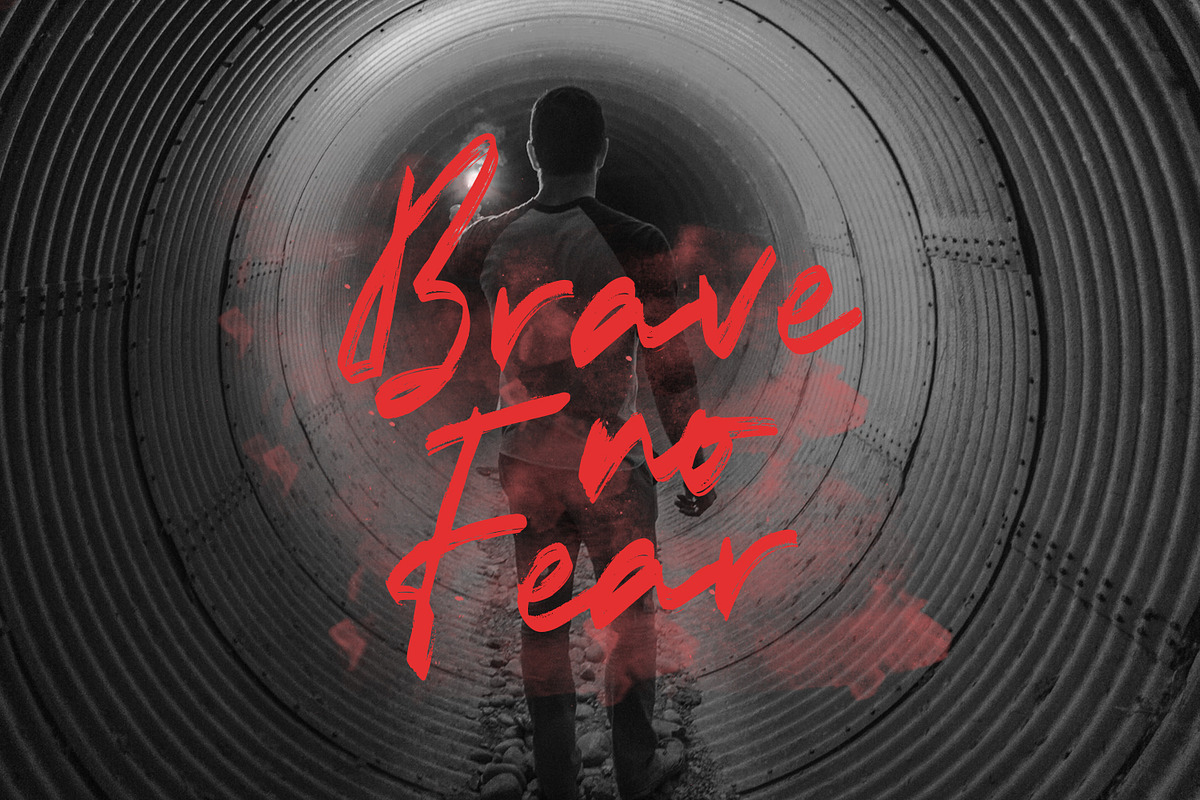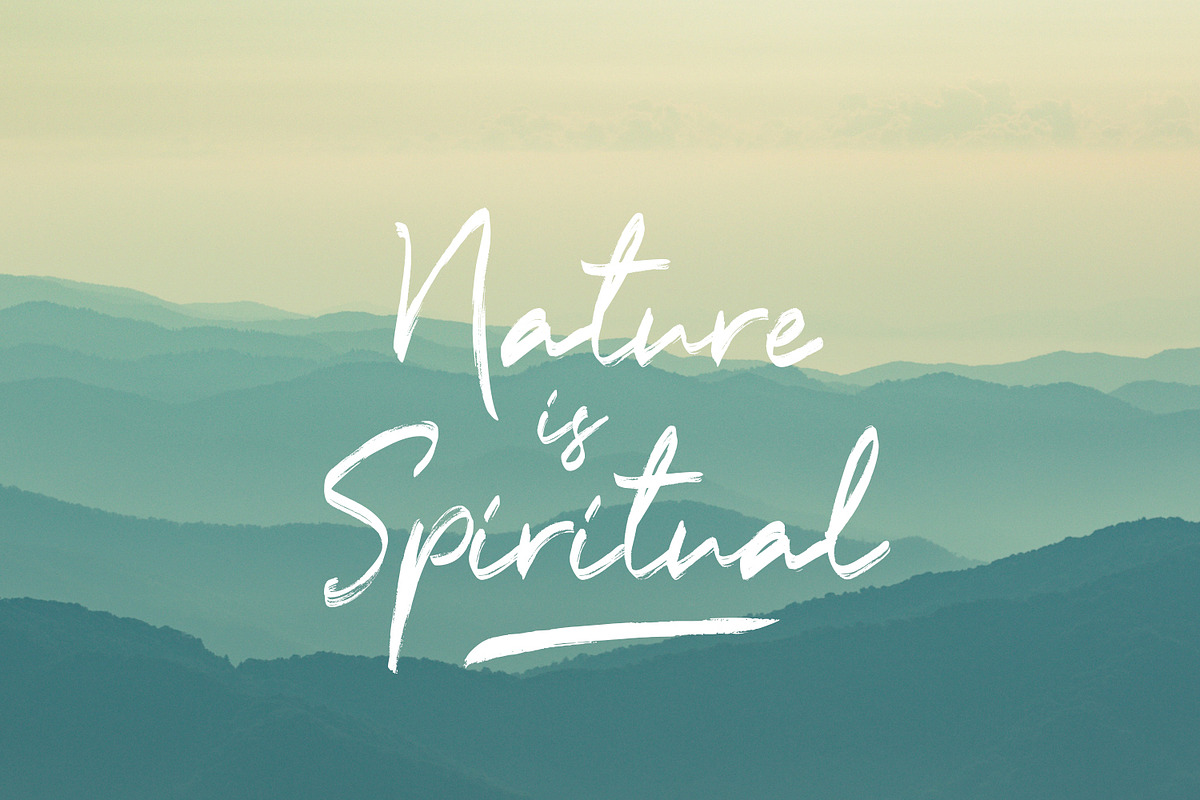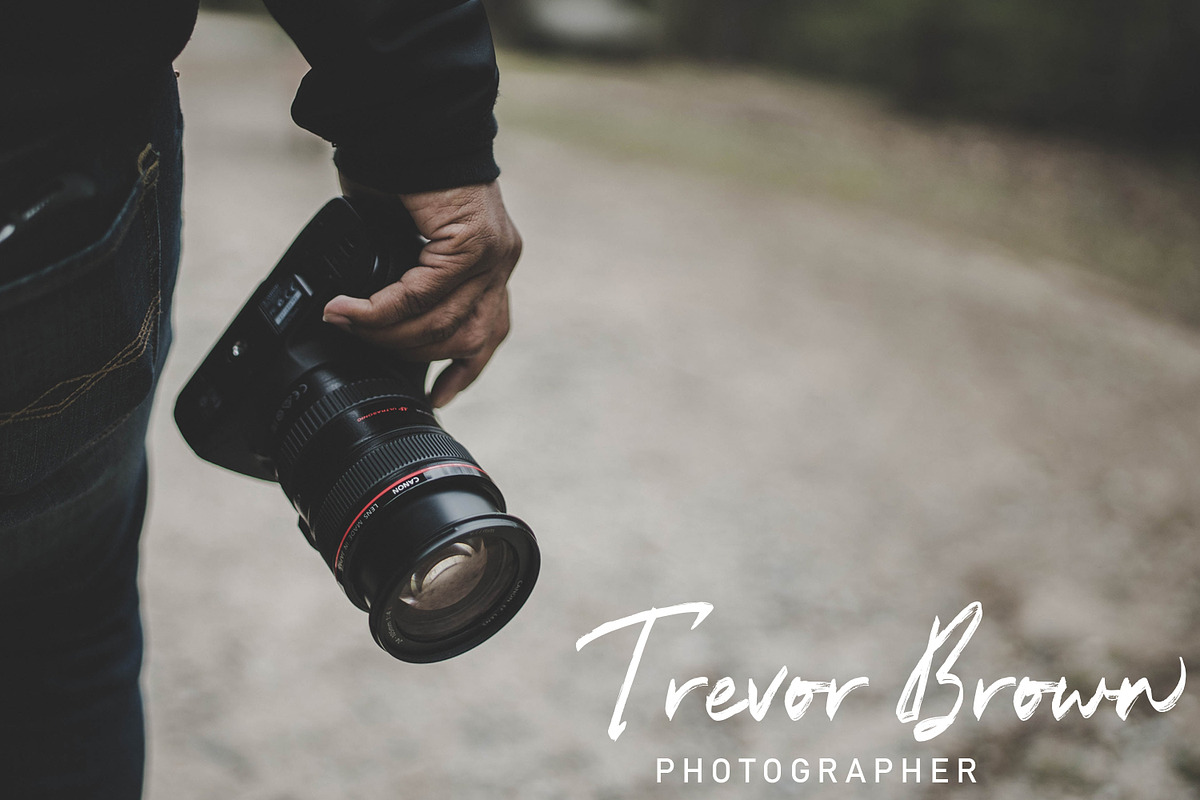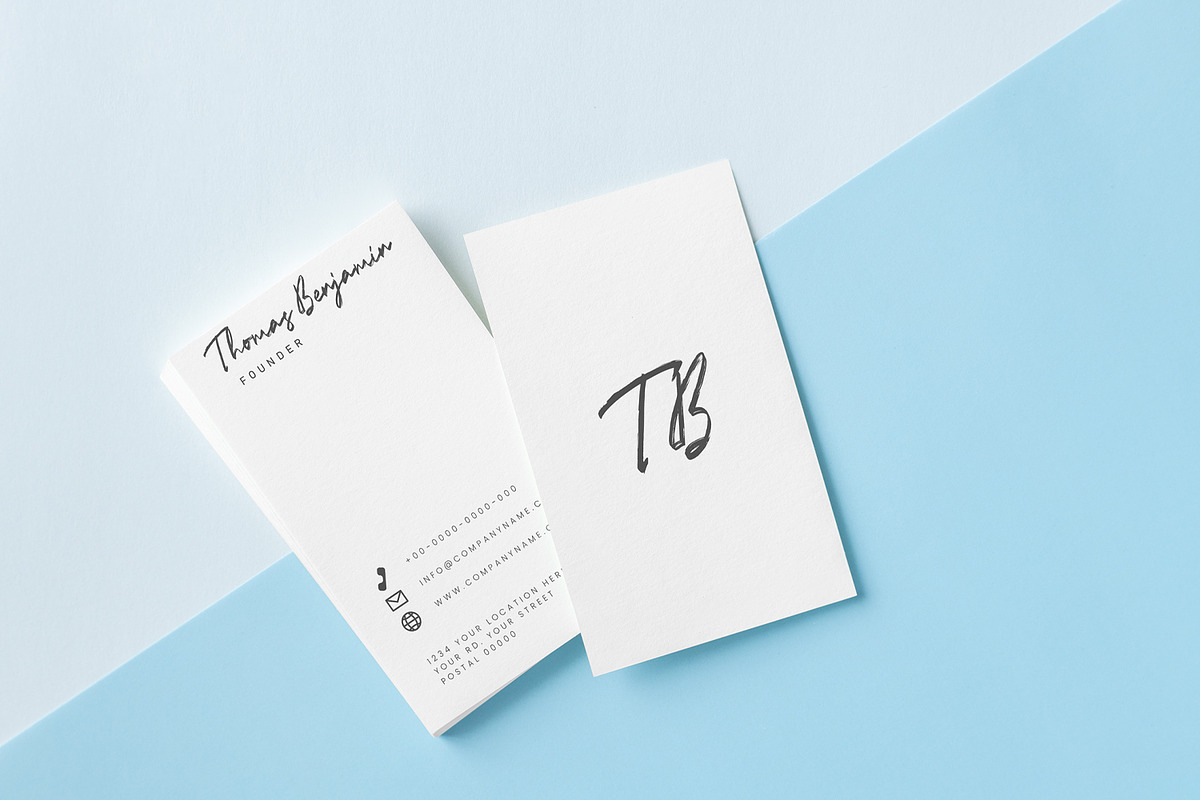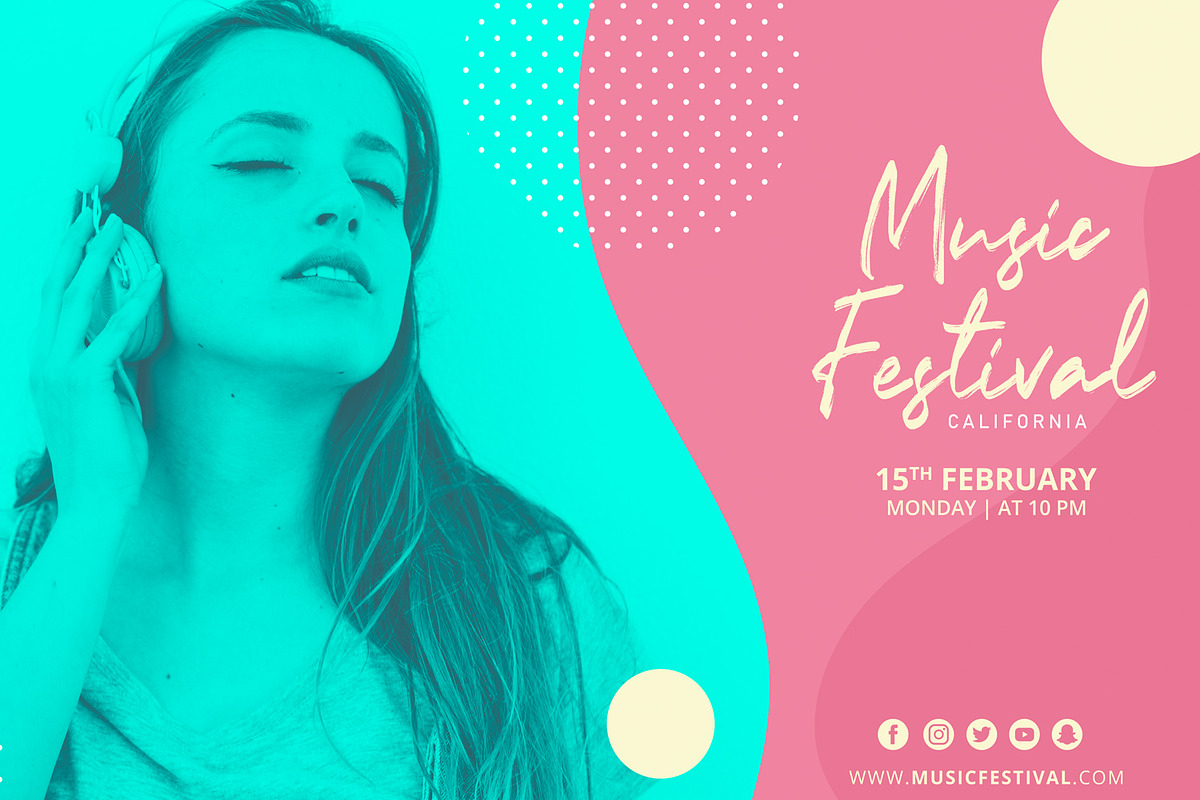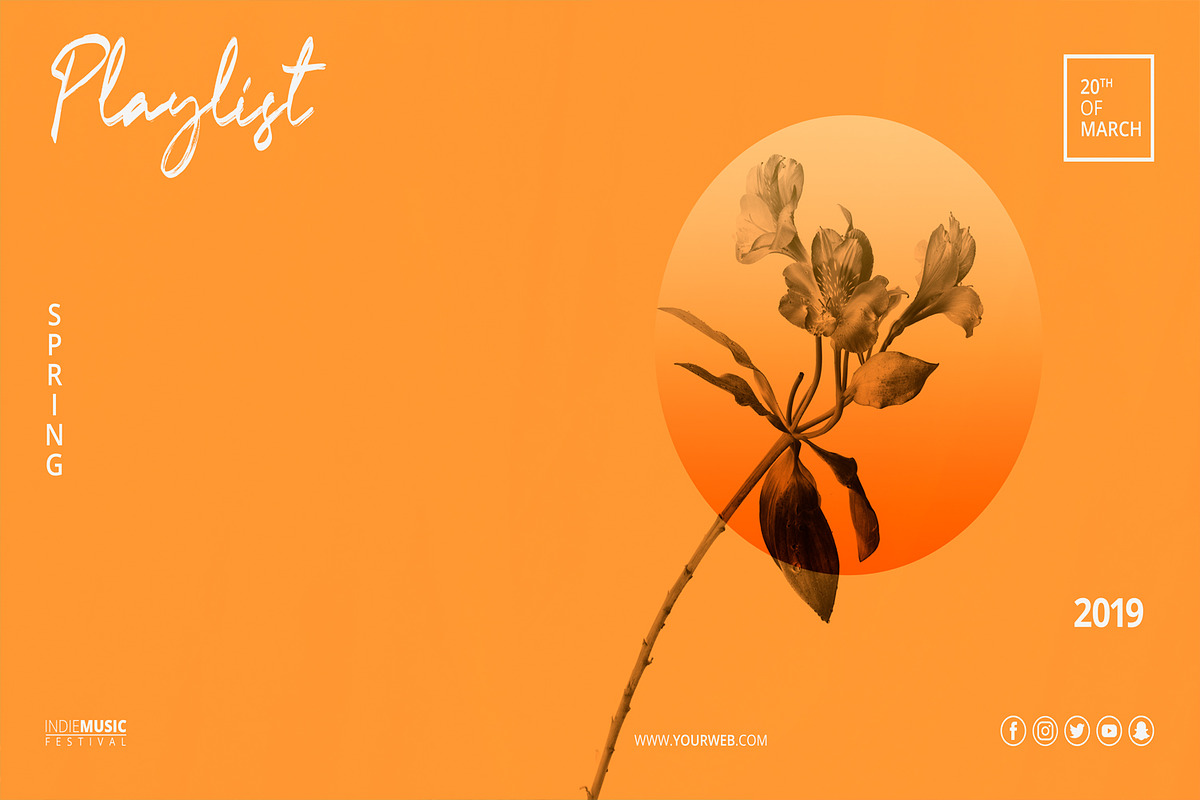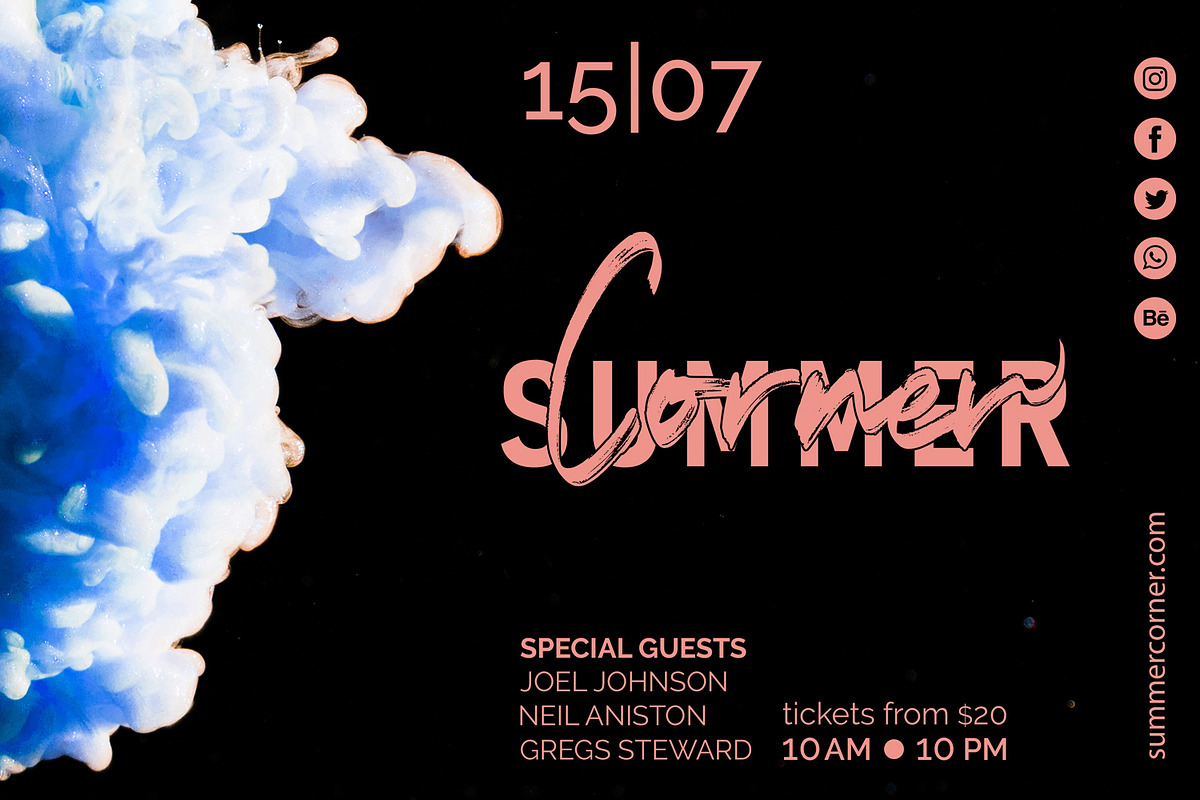
Shifters - Handwritten Typeface
Shifters Handwritten Typeface is a font with distinctive handwritten characters perfect for branding projects, logos, wedding designs, media posts, advertisements, product packaging, product designs, labels, photography, watermarks, invitations, stationery, and any project who need handwritten dishes.
Why Shifters - Handwritten Typeface is worth a look
Shifters - Handwritten Typeface by Arendxstudio fits naturally into Branding, posters, packaging, typography.